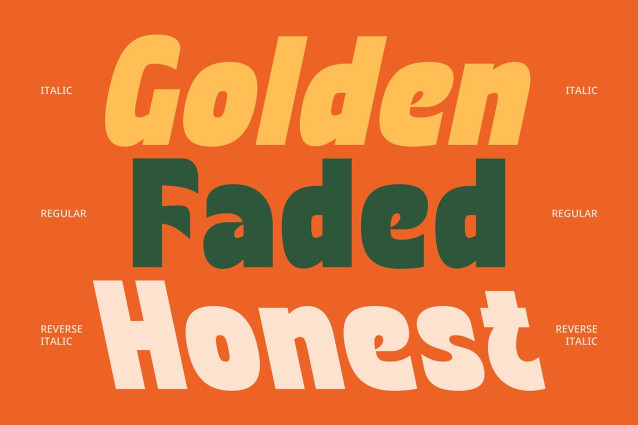
CS Bingley Font
CS Bingley Font is a sans-serif display font that combines a bold, solid form with a playful retro aesthetic. Its oversized proportions and confident weight give it a strong visual presence, while its quirky styling injects fun and flair into every letter.
Creative Shapes with Eccentric Character Designed with modified corners, soft curves, and expressive forms, CS Bingley brings an eccentric, energetic, and slightly offbeat feel. Each character showcases a personality of its own—perfect for grabbing attention and setting a joyful, funky tone.
Inspired by ’70s–’90s Visual Culture Rooted in the expressive design trends of the ’70s to ’90s, CS Bingley channels the boldness of vintage posters, pop album covers, and retro television graphics. It offers a nostalgic yet fresh style that resonates with both throwback and modern creative themes.
Perfect for Playful Branding and Nostalgic Design Whether used for music posters, youth-oriented branding, apparel graphics, or retro packaging, CS Bingley makes a loud and stylish statement. Its funky look is ideal for projects that aim to stand out while celebrating creativity and personality. With its vibrant style and bold attitude, CS Bingley adds a playful impact to any design. Whether you’re crafting a throwback vibe or simply looking to infuse some funky personality, this font is your perfect creative companion.